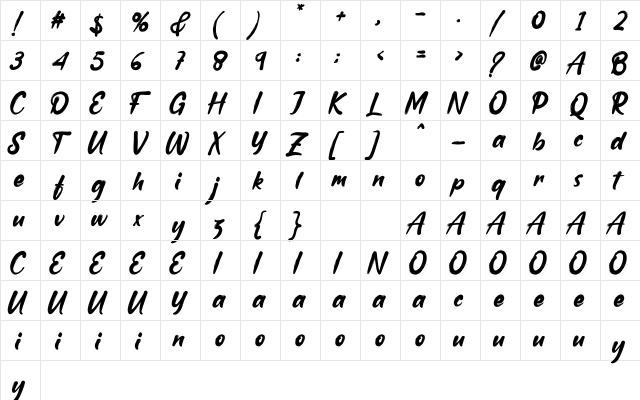
Winter Glisten Regular
Design Context for Winter Glisten Typeface
Winter Glisten is a composed and adaptable typeface that performs quietly and consistently across a wide range of design contexts.
Pro Tip: Pair Winter Glisten with a font of contrasting weight or personality to build a more expressive typographic hierarchy.